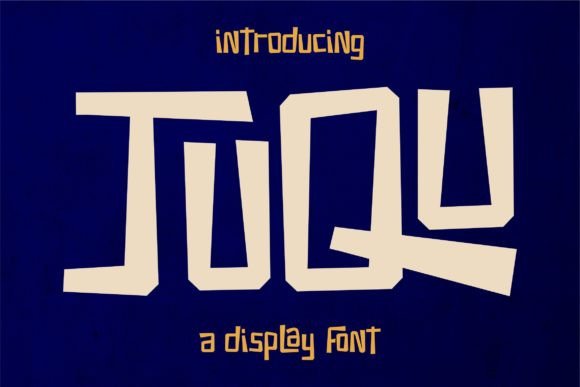
Brace yourself for a typographic odyssey with Juqu, the display font that will ignite your creative spirit and transform your design projects into captivating masterpieces. This unconventional font, meticulously crafted by the renowned Vunira, is a symphony of playful letterforms and clean lines, dancing harmoniously to create a visual spectacle that commands attention.
Juqu's mischievous and quirky personality shines through in every curve and stroke, injecting a sense of fun and whimsy into your designs. Its clean lines and modern design, however, ensure that it remains highly versatile, effortlessly adapting to a wide range of projects.
Unleash your creativity and embark on a journey of visual exploration with Juqu. Its PUA encoding grants you effortless access to a treasure trove of delightful glyphs and swashes, empowering you to add intricate details and flourishes that will elevate your designs to new heights.
Picture your branding and packaging adorned with Juqu's captivating charm, attracting gazes and leaving a lasting impression. Imagine your invitations, posters, and social media posts bursting with personality, captivating your audience with their unique and eye-catching appeal.
Juqu is more than just a font; it's an artistic expression that will ignite your imagination and redefine your creative boundaries. Its playful spirit and versatility make it the perfect choice for designers seeking to create captivating designs that leave an indelible mark.